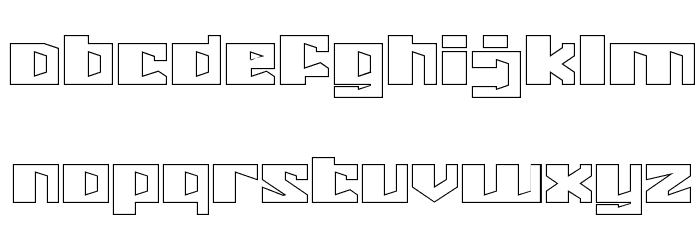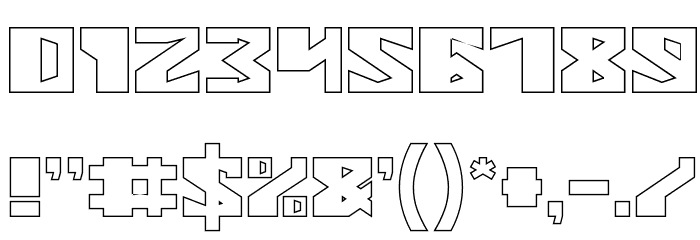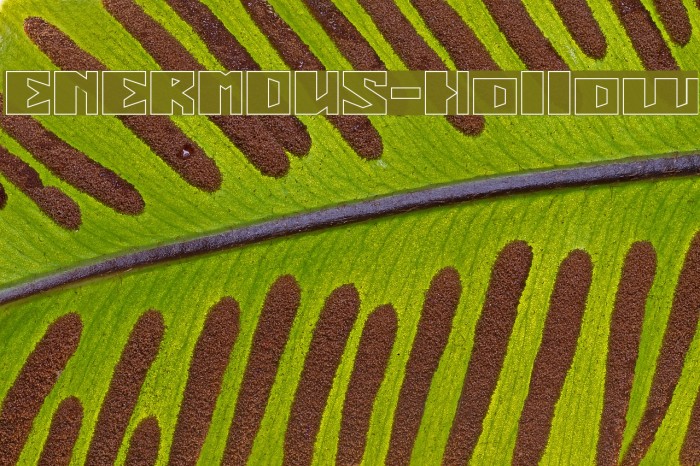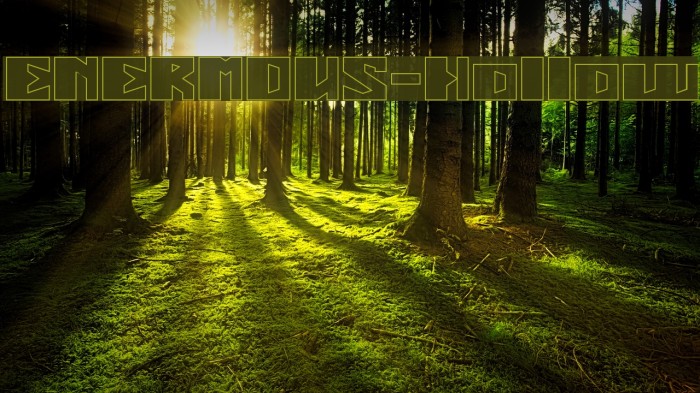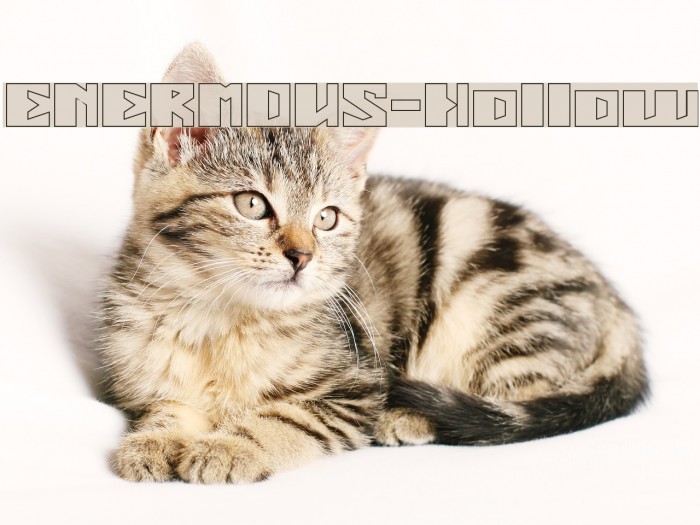
ENERMOUS-Hollow Font
This font features a bold, geometric design with hollow interiors, creating a striking and modern appearance. Each character is crafted with sharp angles and straight lines, giving it a futuristic and digital feel. The uppercase and lowercase letters maintain a consistent style, with the hollow effect enhancing the visual impact. Numbers and special characters are designed to match the angular theme, ensuring uniformity across all elements. The font's unique style makes it ideal for projects that require a bold statement or a contemporary edge.
A bold, geometric font with hollow interiors and a futuristic style.
- Proposed Projects: Ideal for digital art, modern posters, tech branding, and video game titles.